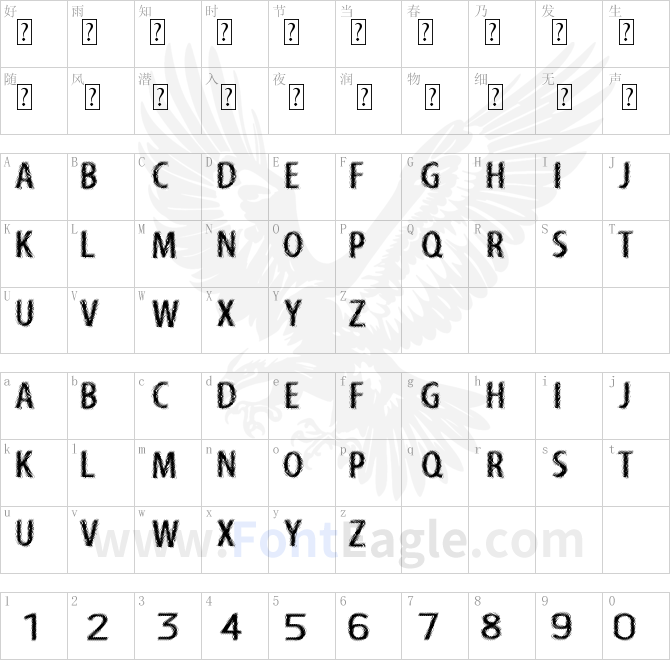
- Font name:Panther Scratches
- Font Subfamily ID:Panther Scratches:Version 1.00
- Font Full Name:Panther Scratches
- Font Version:Version 1.00 December 20, 2014, initial release
- Postscript:PantherScratches